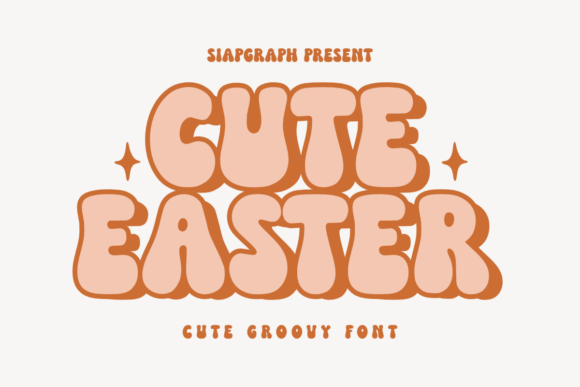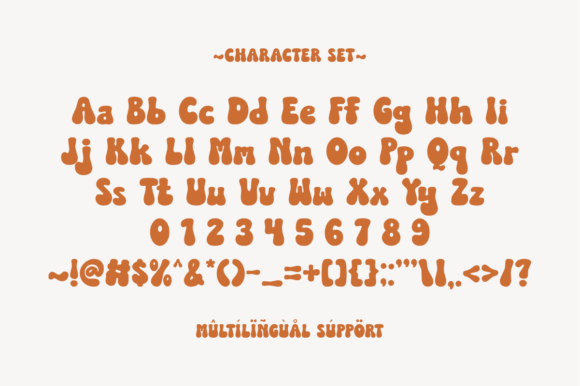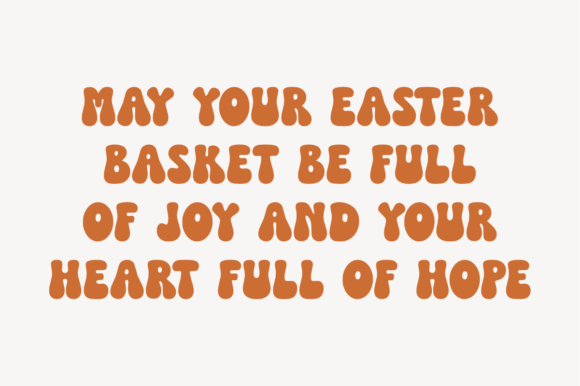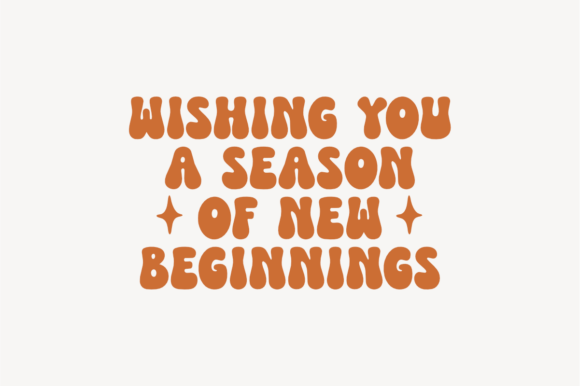
Cute Easter Font: Playful Display Typography for Baby & Kids’ Crafts
About the Cute Easter Font
Add a touch of class to your work with the Cute Easter Font, a truly exceptional typeface. Cute Easter is a childish, easy-to-read display font that conveys impeccable friendliness. Whether you’re using it for crafts, digital design, presentations, or making greeting cards, this font has the potential to become your favorite go-to font, no matter the occasion!
Cute Easter excels as a display font for headlines, short text blocks on posters, greeting cards, and social media graphics. Its friendly nature makes it ideal for children’s products, branding for playful businesses (like bakeries or toy stores), and springtime-themed designs. However, its playful character and relatively large x-height make it unsuitable for body copy or UI elements requiring high readability over extended text.
Pairing it with a clean sans-serif like Open Sans or Lato provides a sophisticated contrast, grounding the playful energy. For a more whimsical feel, consider pairing it with a script font like Great Vibes, but use the script sparingly to avoid visual clutter. A geometric sans-serif such as Montserrat could also work well, offering a modern counterpoint to the font’s rounded forms.
The font’s overall personality is undeniably cheerful and approachable, communicating a sense of fun and lightheartedness. Its friendly aesthetic makes it a strong choice for projects aiming for a joyful and inviting feel.
Cute Easter Font Usage Examples
Cute Easter Font Example